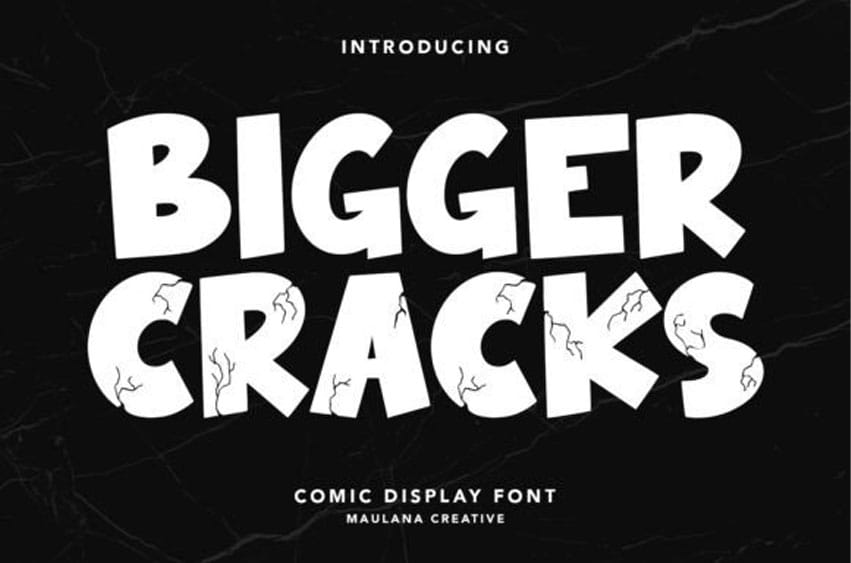
Bigger Cracks Font is a trendy and attractive display font that crackles with personality and charm. With its unique and eye-catching design, this font is perfect for adding a touch of edginess to your designs, whether you’re creating posters, album covers, or social media graphics. Stand out with the crackling vibe of this font!